FontBundles.net present Wedding Fonts. The perfect selection of fonts for wedding invitations, guest name presentations, wedding décor and your craft range of wedding giftware.
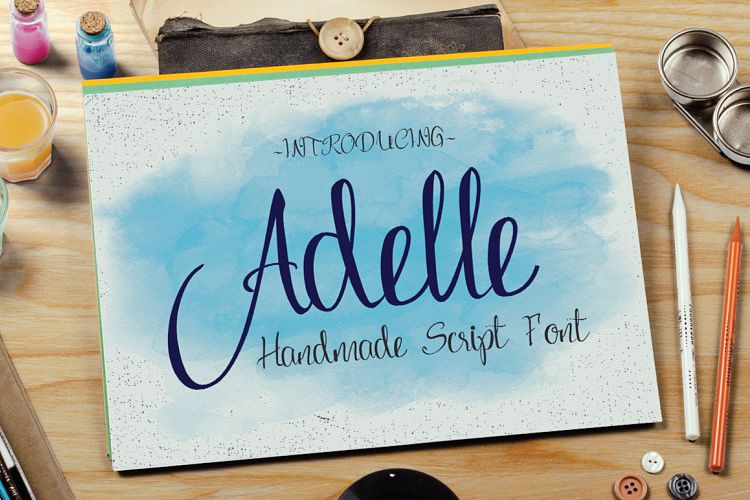
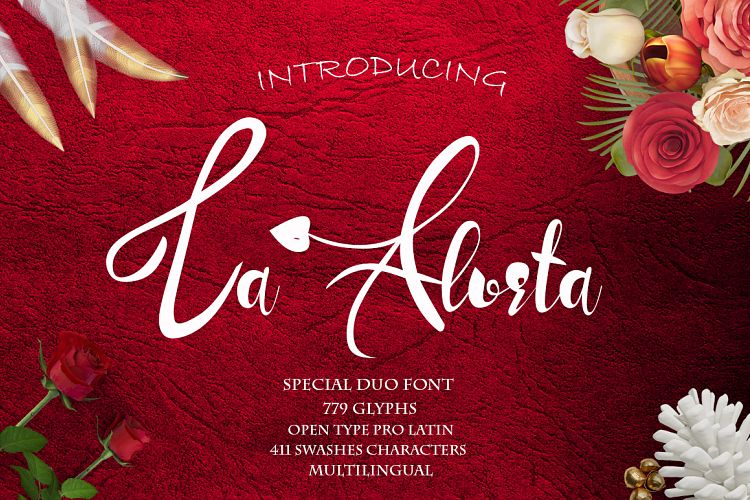
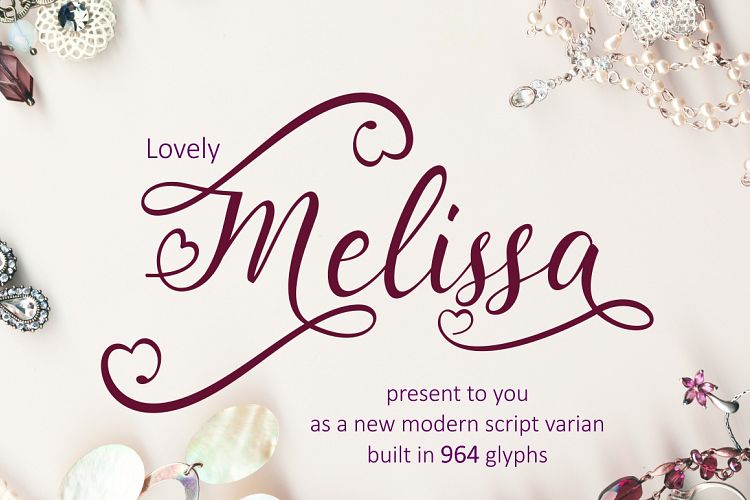
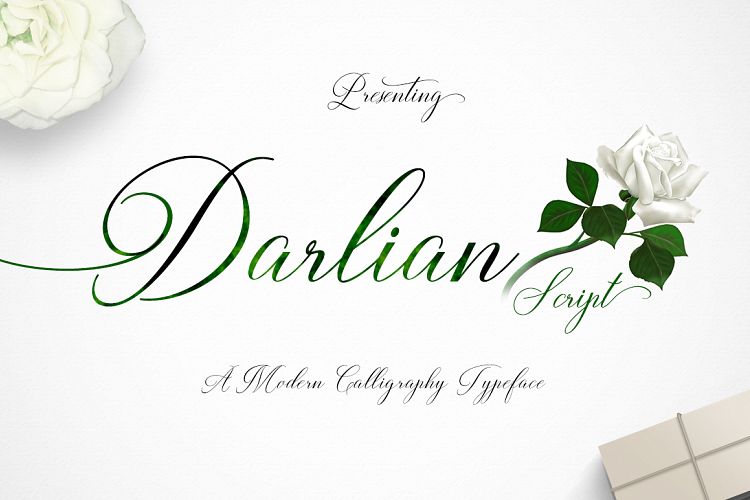
Introducing "Adelle Script Handwriting Typeface"
Adelle is the perfect companion for any bundle, especially when it comes to weddings. How can you write those invites without Adelle featuring somewhere? It's hard not to include it.
Lovely La Alorta Script Font is a new handmade script typeface.
With 779 Glyphs this special duo font makes those guest name plates that extra bit special. Make that wedding one to remember.
A lovely hand brushed Typeface, Hello Lary is one for any collection, especially for those all-important guest name plates. Add a little sparkle to any wedding.
Lovely Melissa is that one font that everybody wants. The font that makes any wedding décor look that extra bit glamorous.
964 built in glyphs make lovely Melissa that extra bit special.
Darlian Script just oozes class. It’s that one font that takes that wedding memorabilia from just an everyday gift to something to remember.